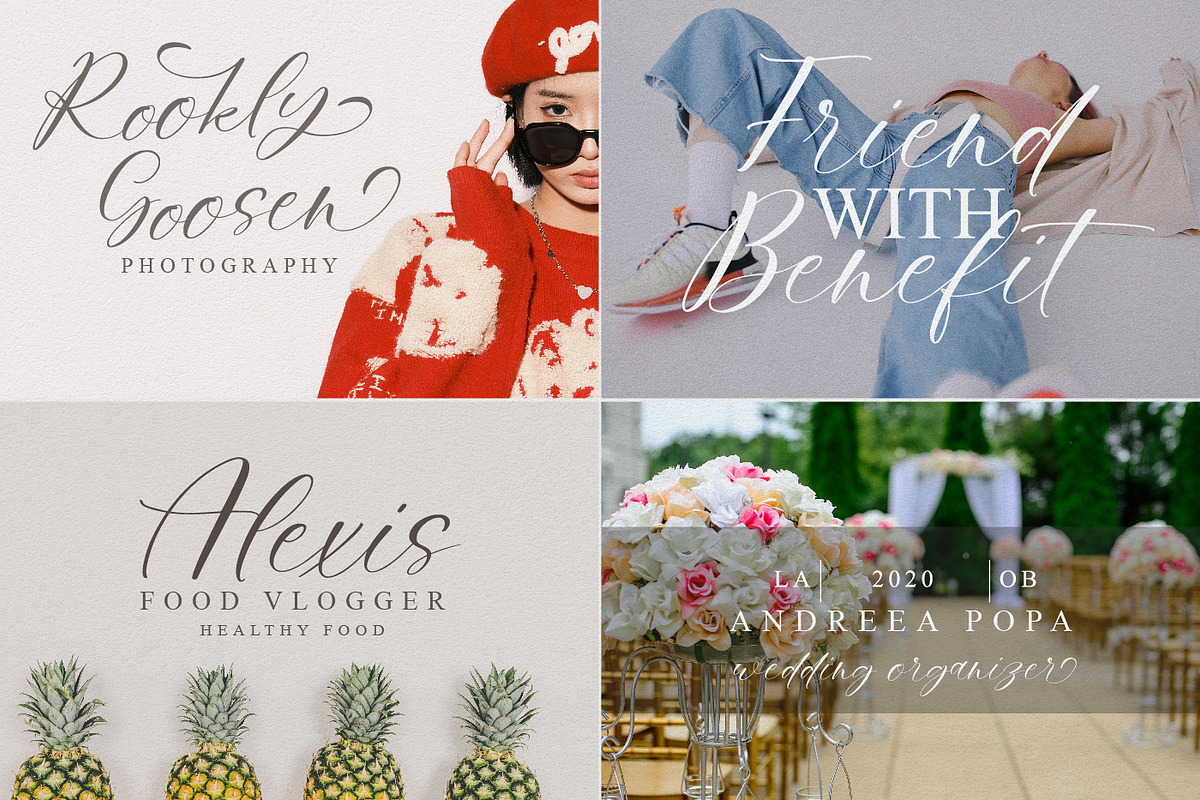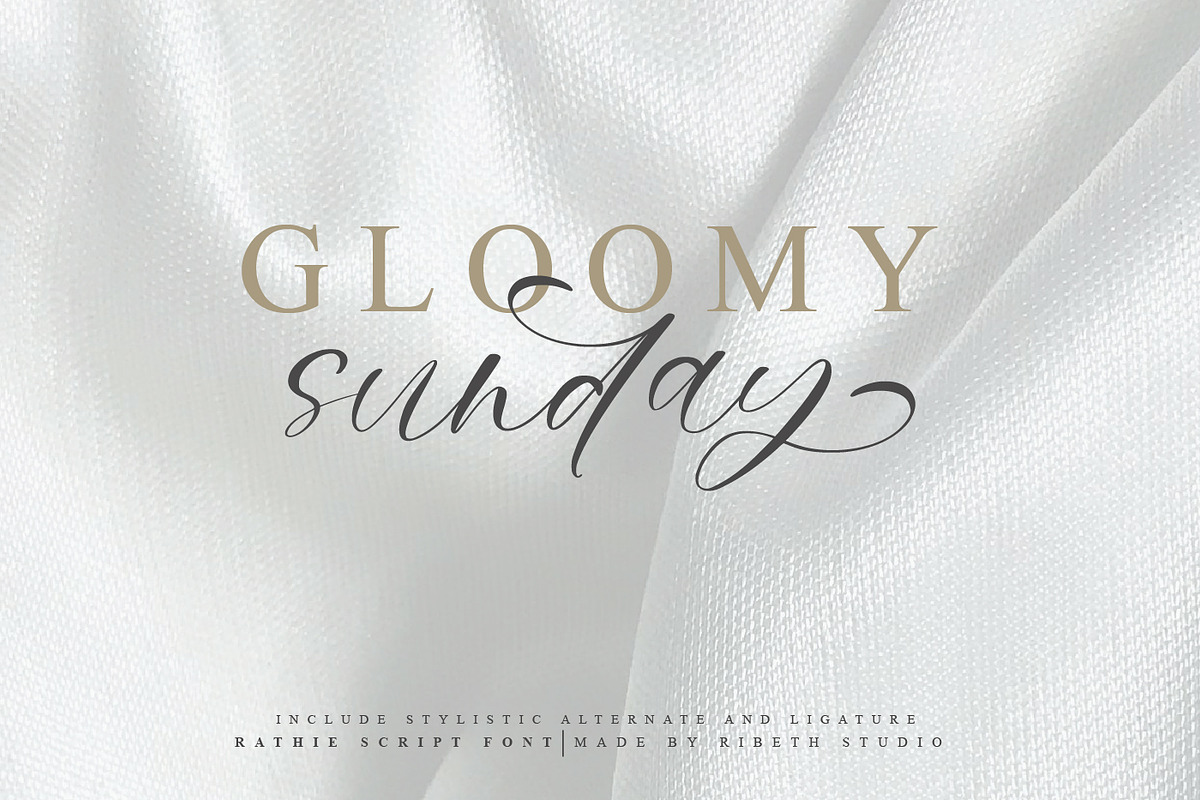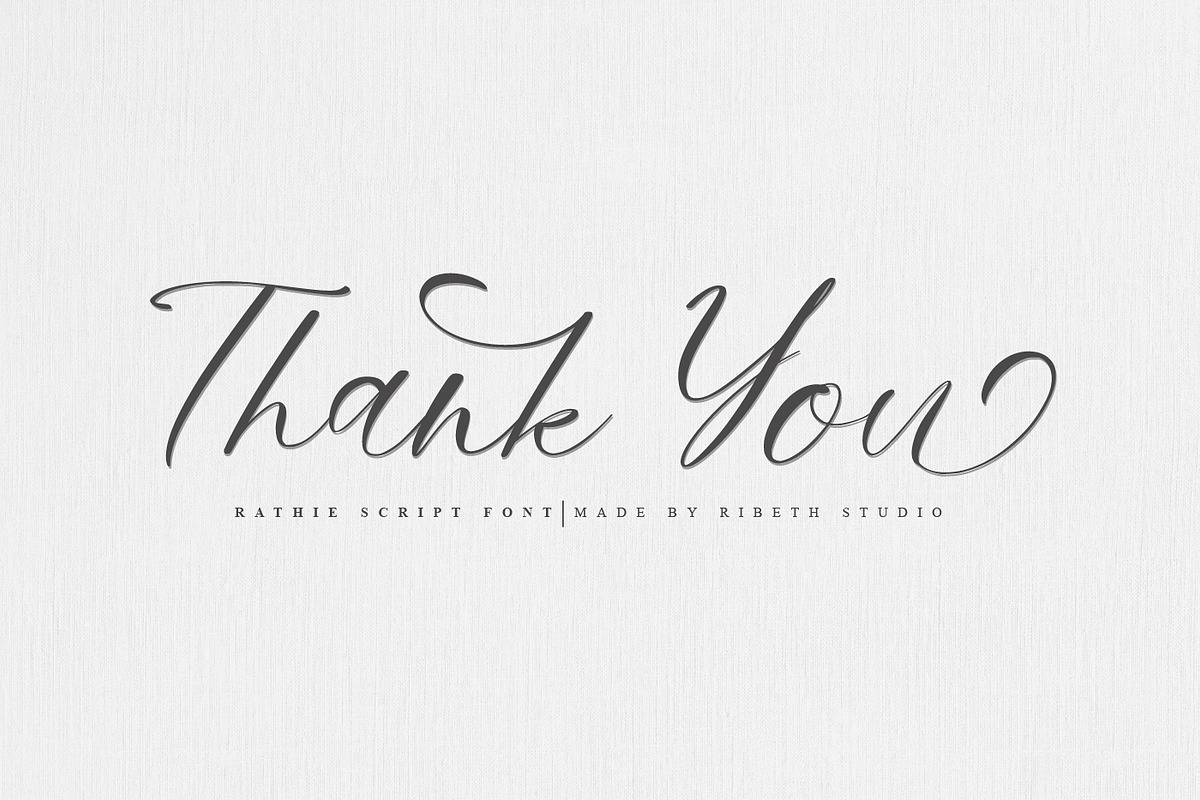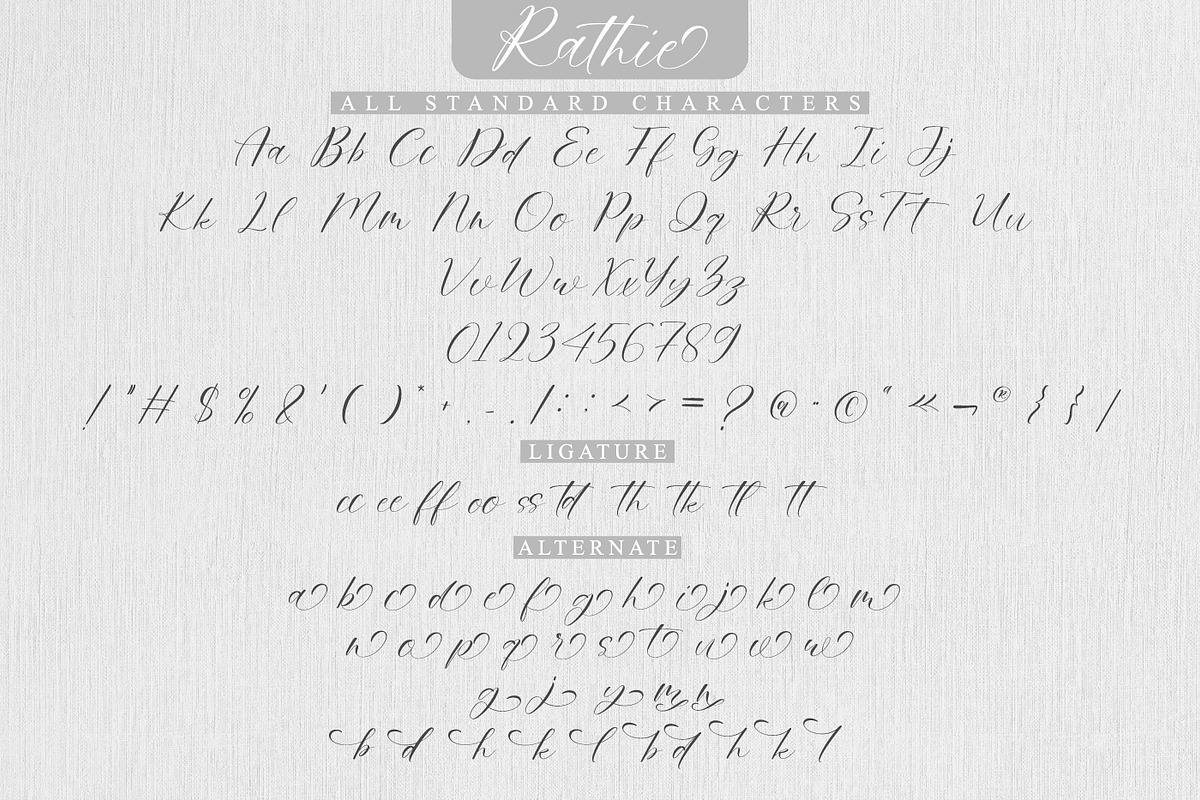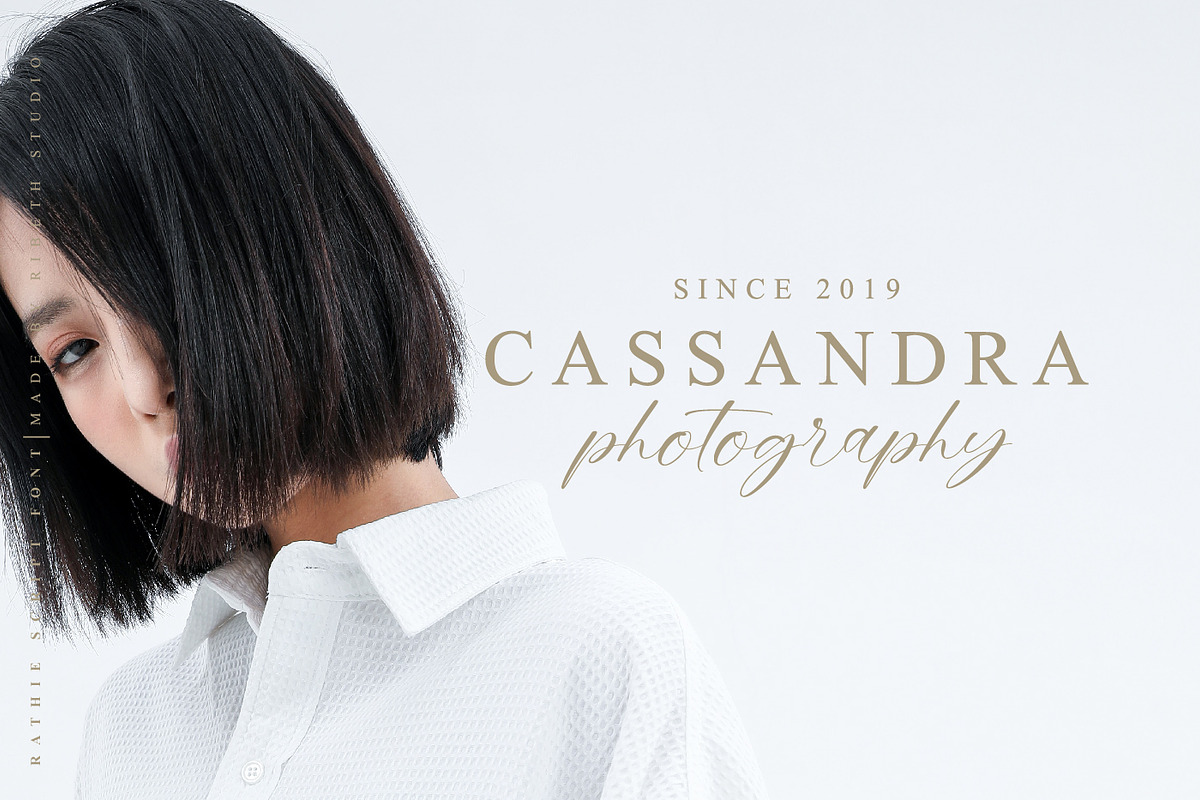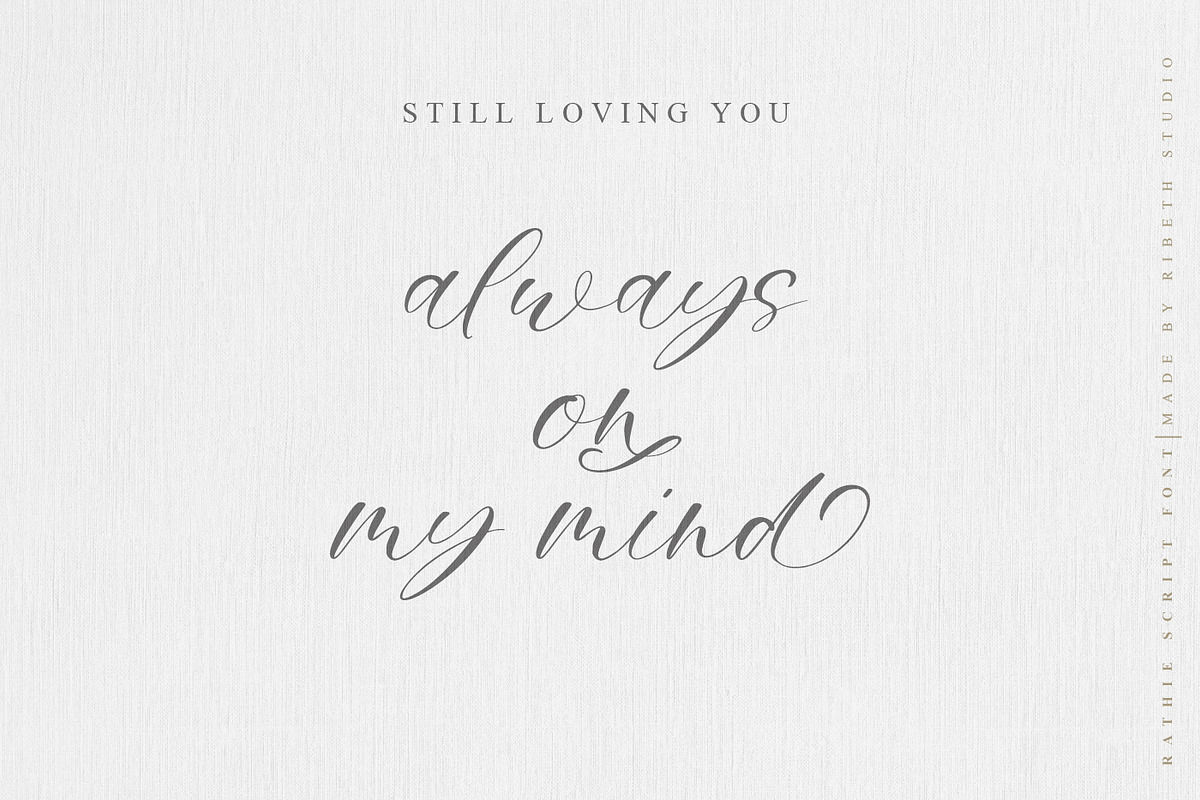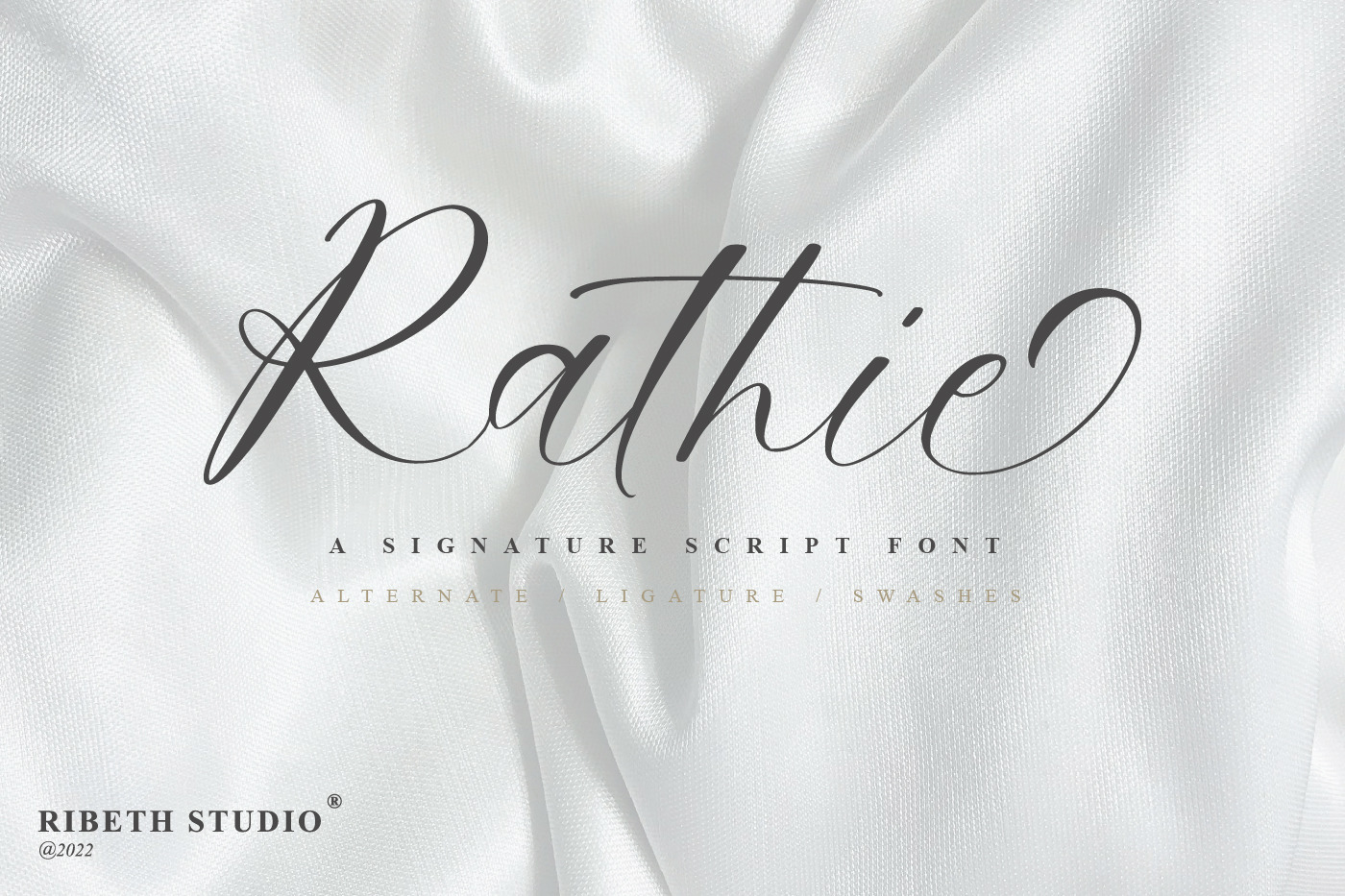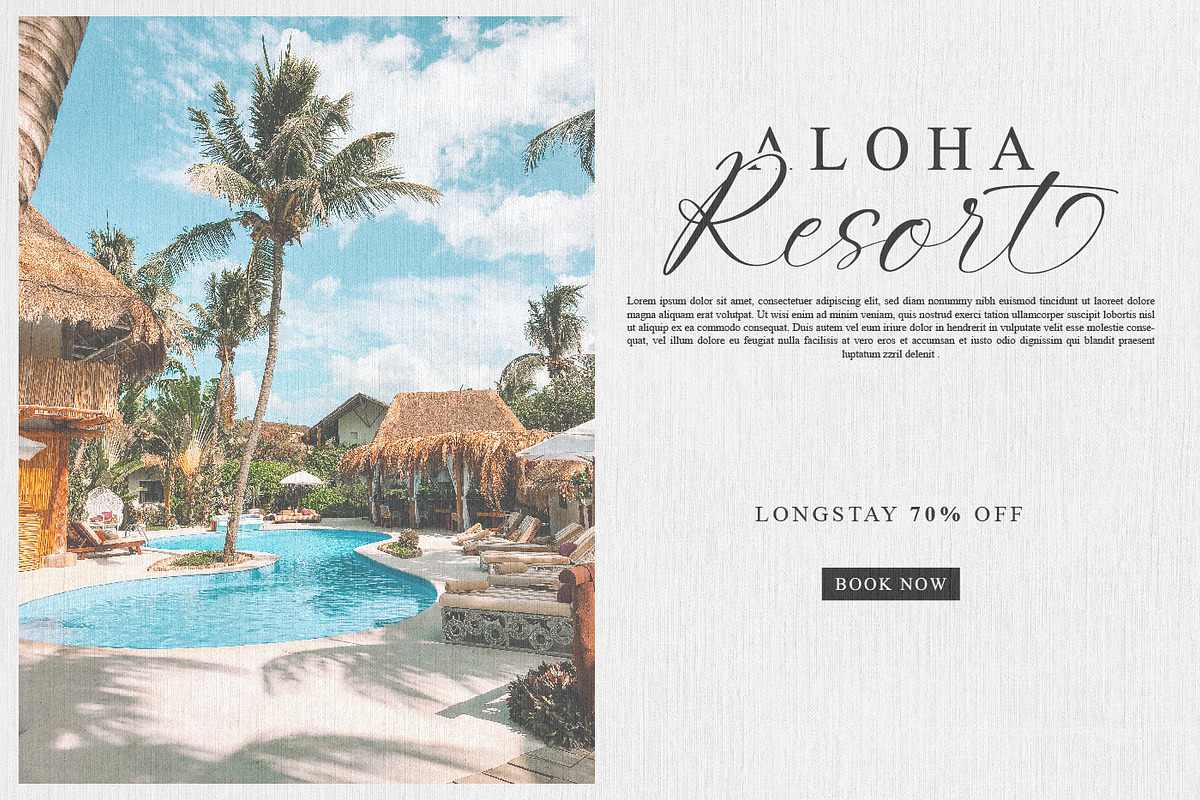
Rathie - Signature Script Font
Rathie is Signature writing relaxed & beautiful. This signature font is perfect for weddings, watermarks, branding, such as interviews, business cards, product logos, etc.
Rathie is perfect for branding projects, logos, wedding designs, social media posts, advertisements, product packaging, product designs, labels, photography, watermarks, invitations, stationery, and any project that requires a sense of handwritten signature.
Font feature
Uppercase, Lowercase, Numerals & Punctuations, Stylistic alternate , Swash (ending) Ligature, Multilanguage